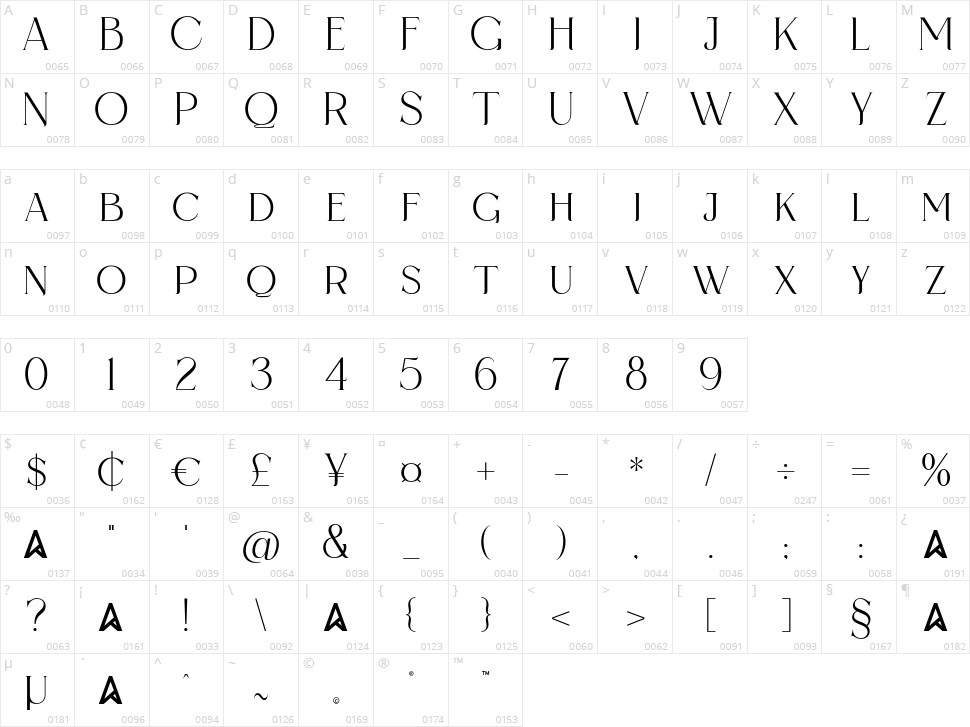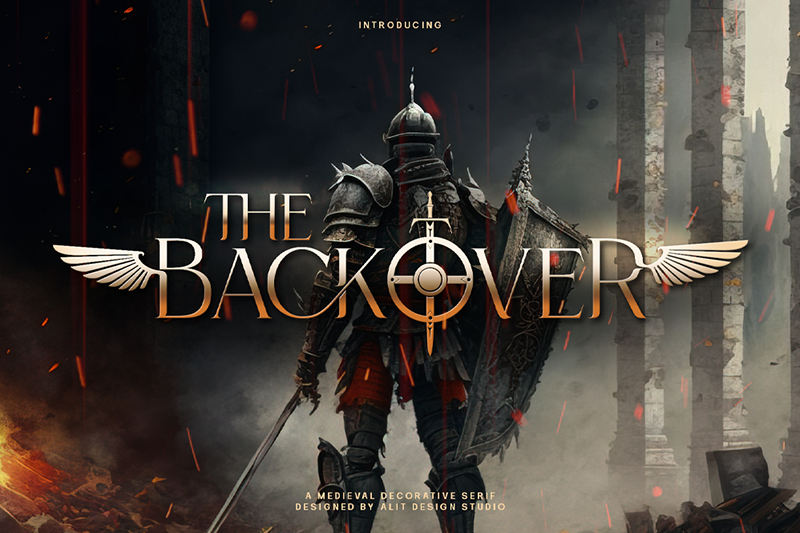
Backover
🔥 Immerse yourself in the epic realm of typography with our latest creation, the "Backover Typeface." Inspired by the valor of superheroes and the chivalry of knights, this font is a visual journey into the heart of heroic tales.